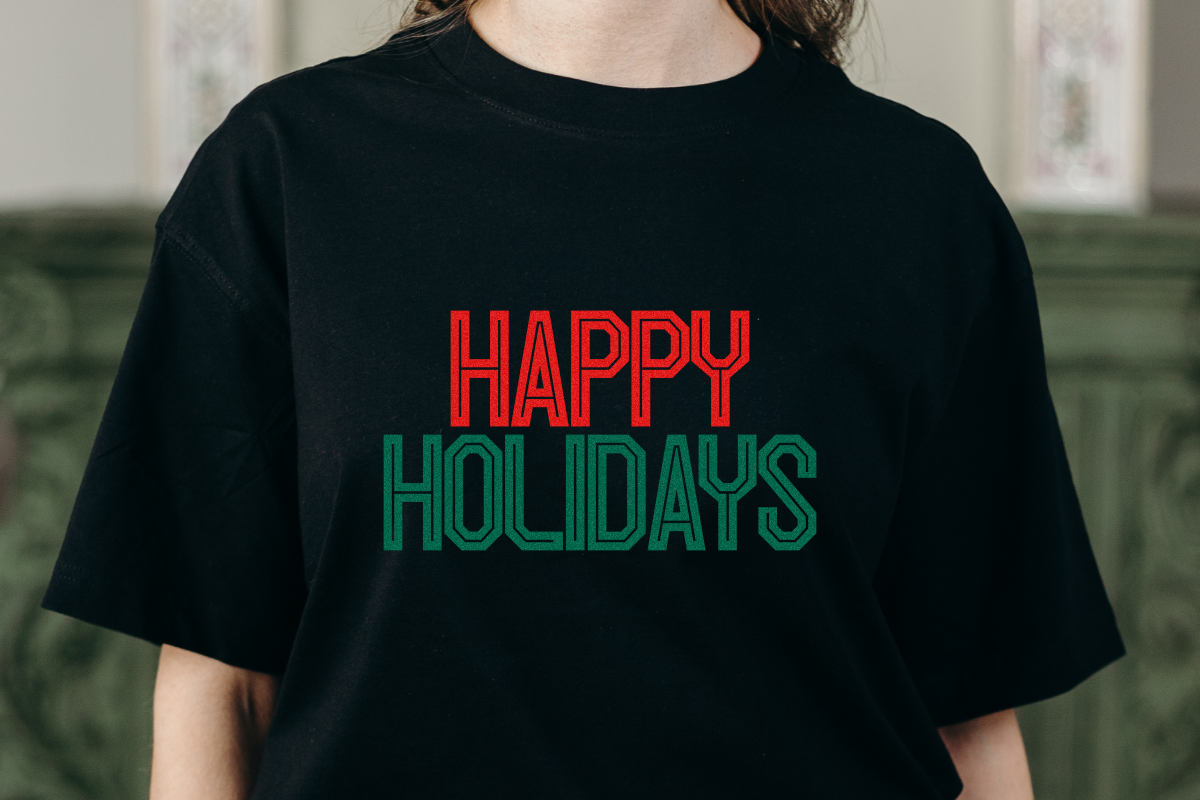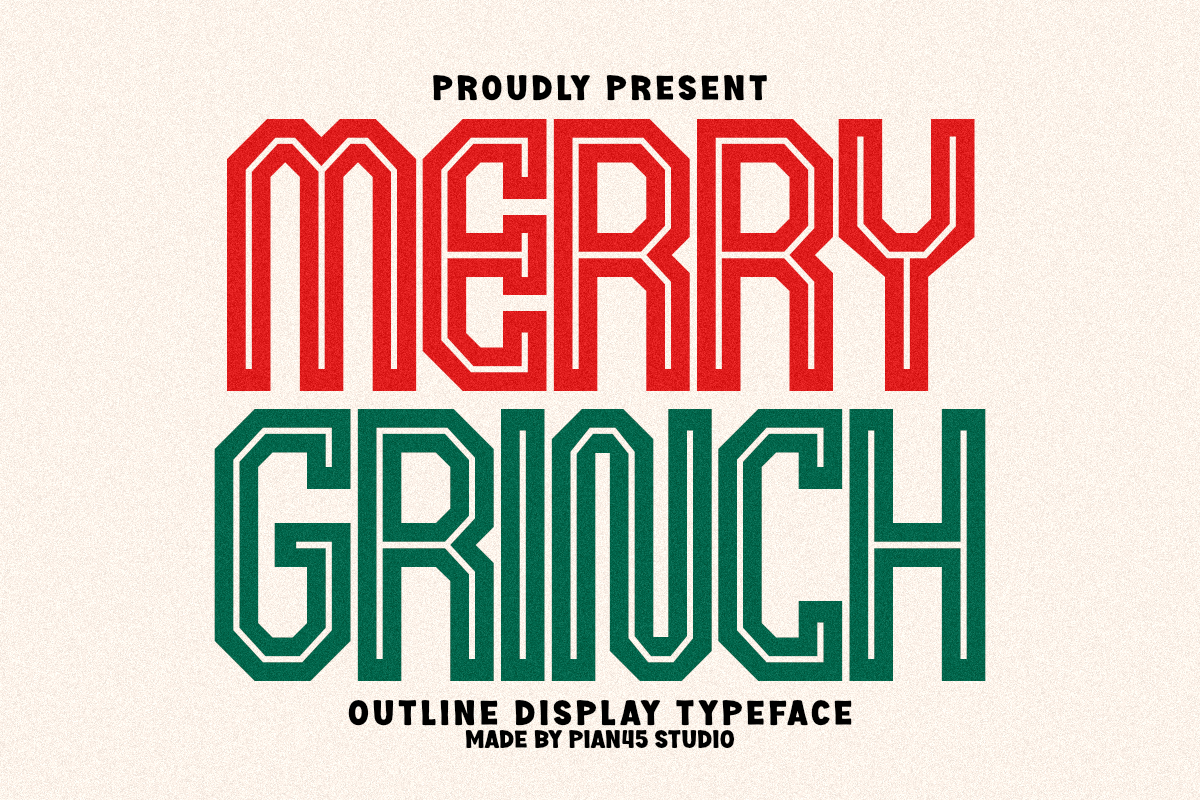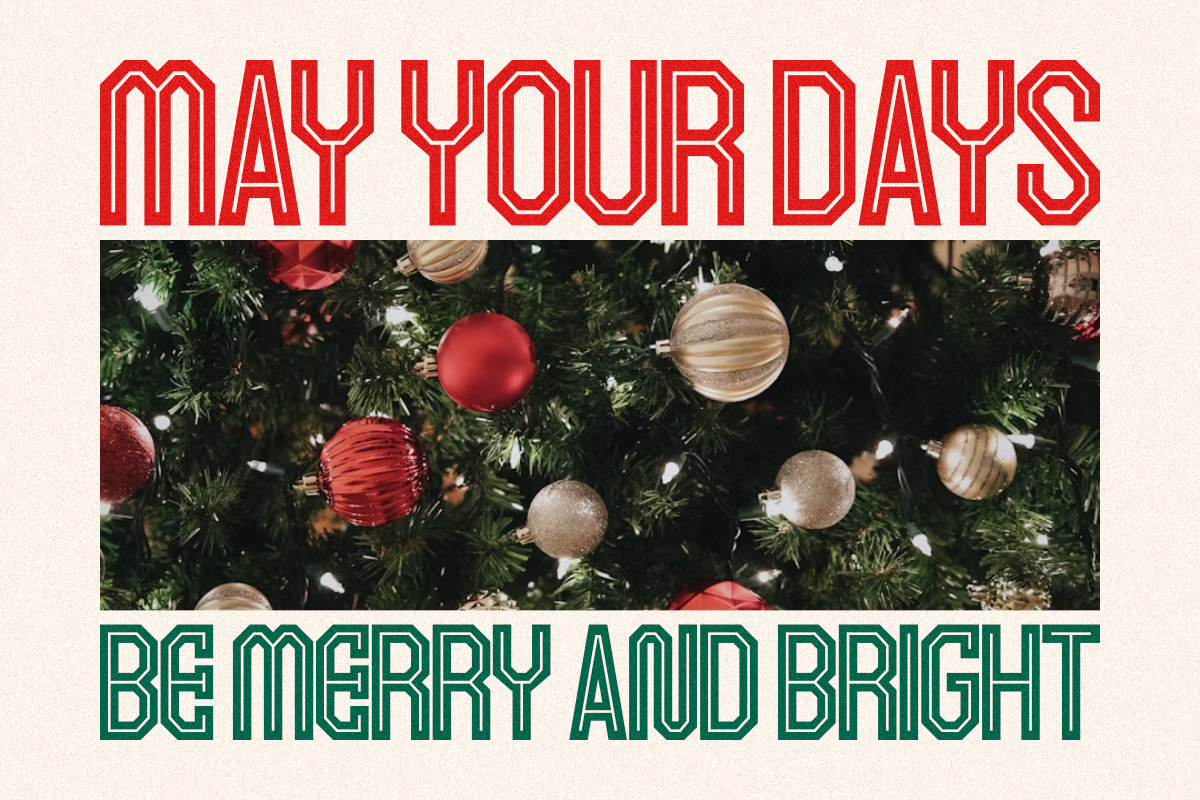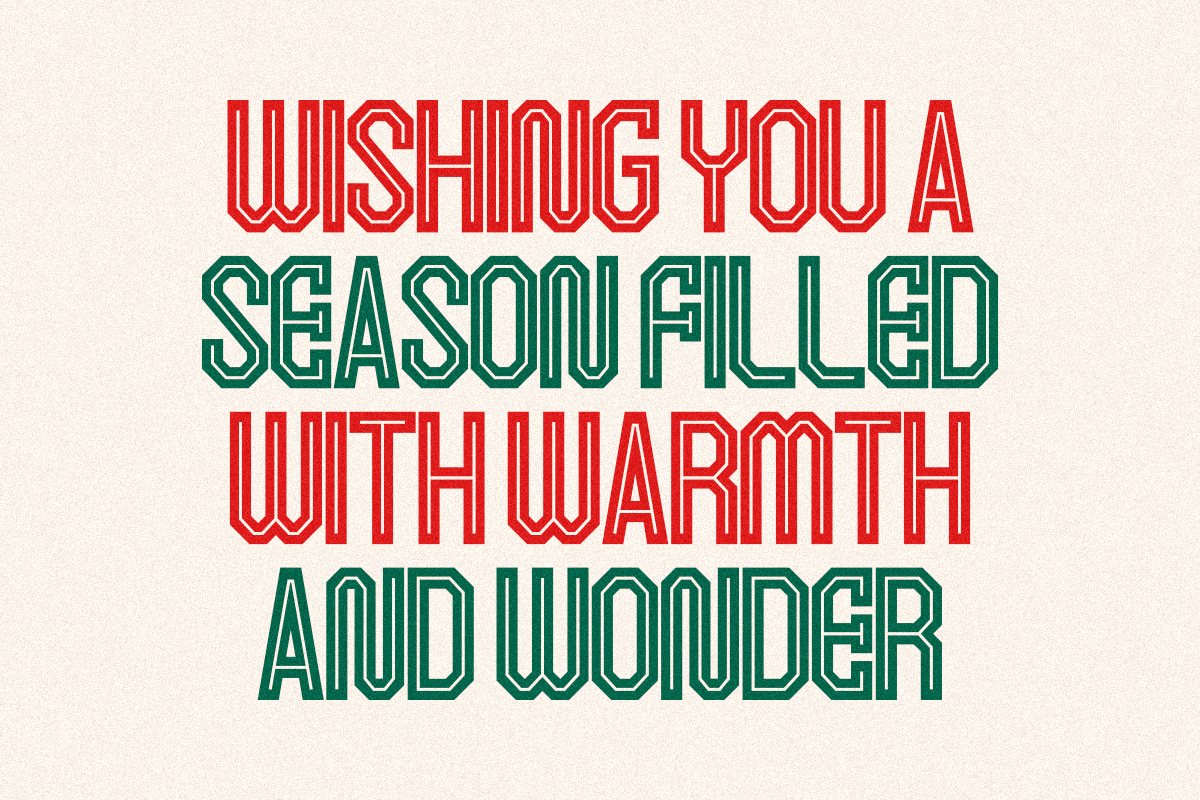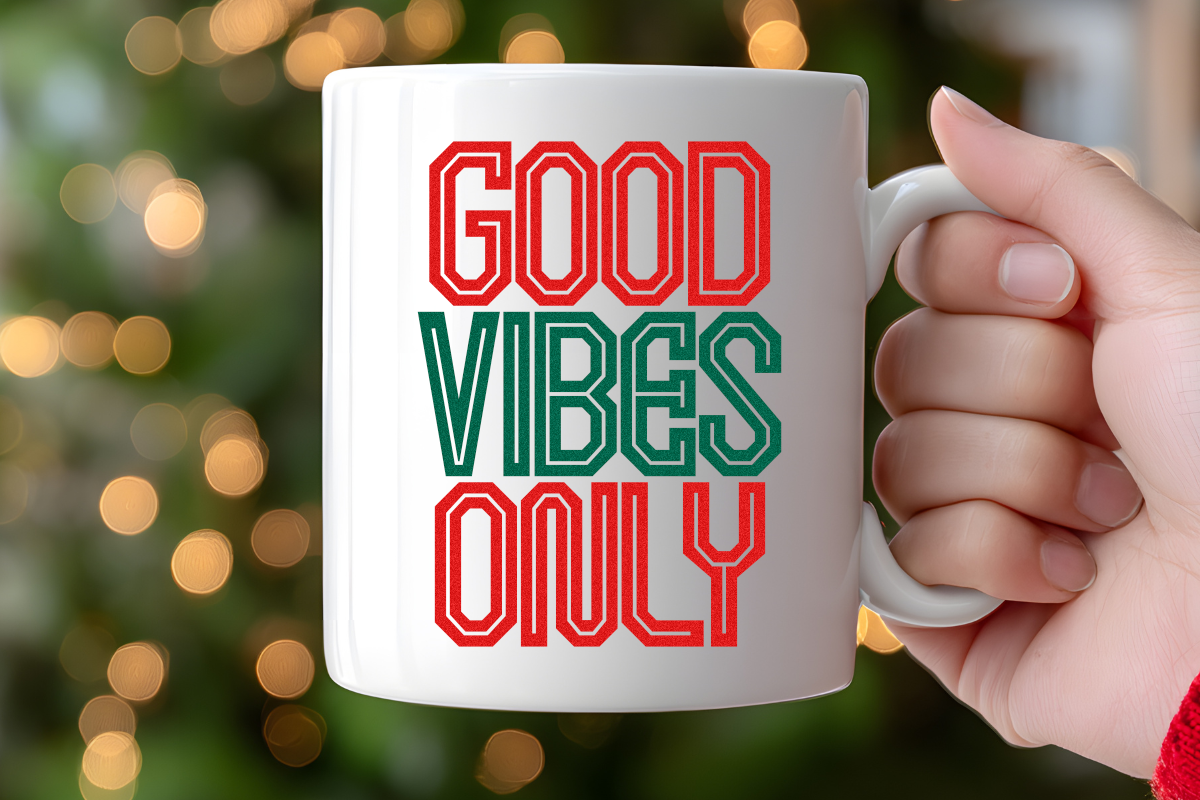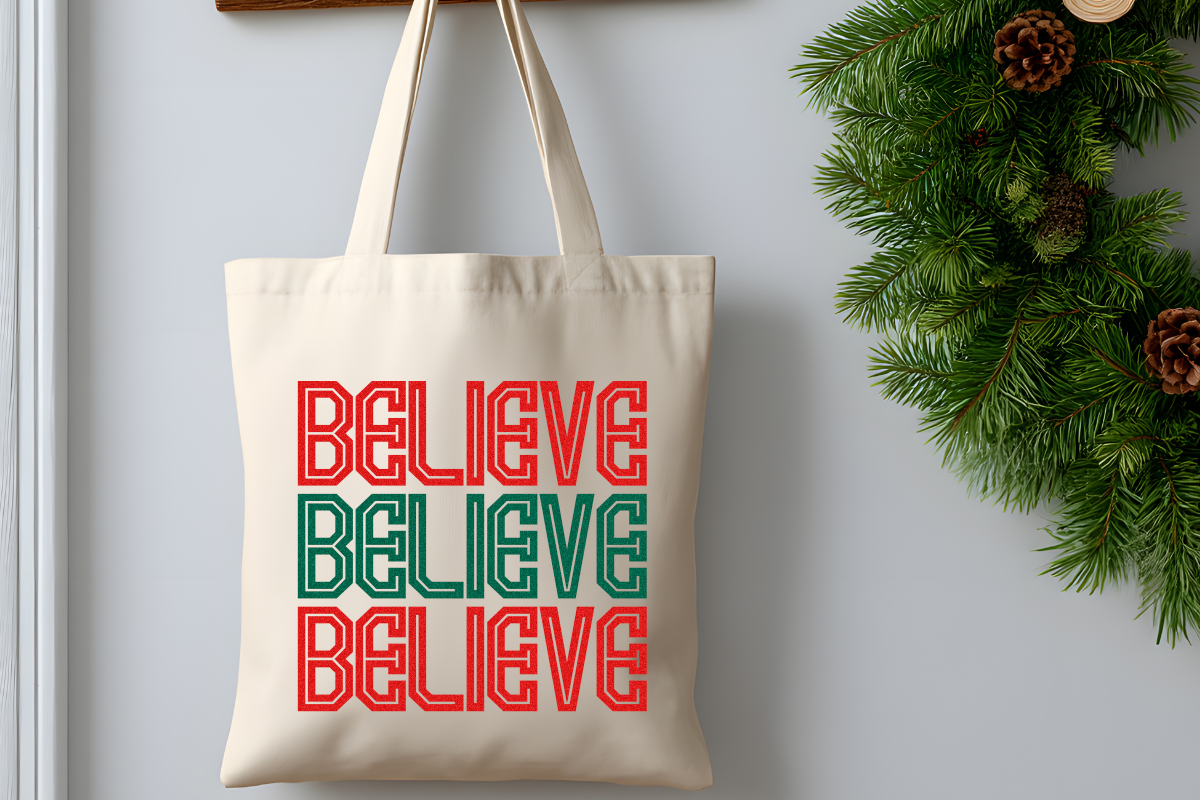
Merry Grinch - Outline Display Font
Merry Grinch is a striking, bold Outline Display Typeface that infuses a classic collegiate/varsity aesthetic with fun holiday cheer. Its ultra-condensed structure and clean, double-line style are perfect for layered designs, seasonal apparel, Christmas sports branding, and high-impact event posters. This unique all-caps font delivers a punchy, nostalgic, and instantly recognizable look, making it the top choice for all your lively December marketing and creative holiday projects.